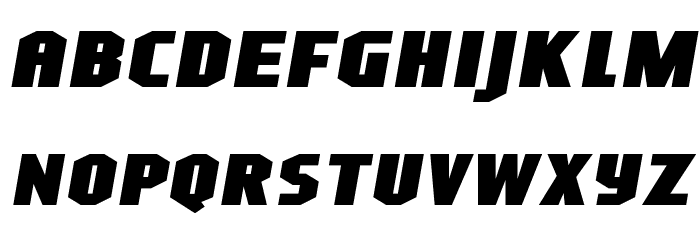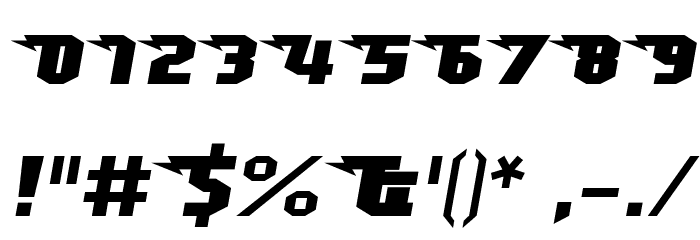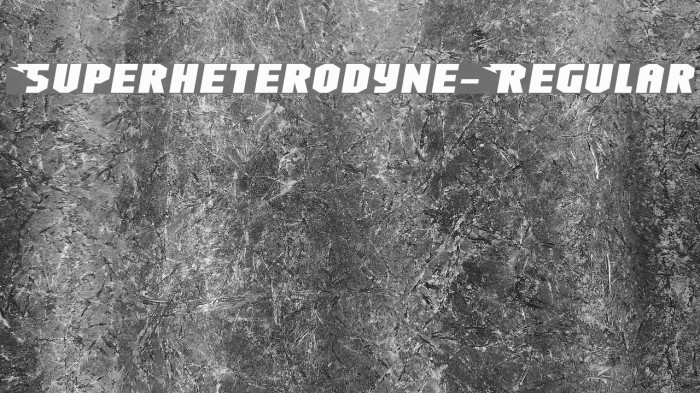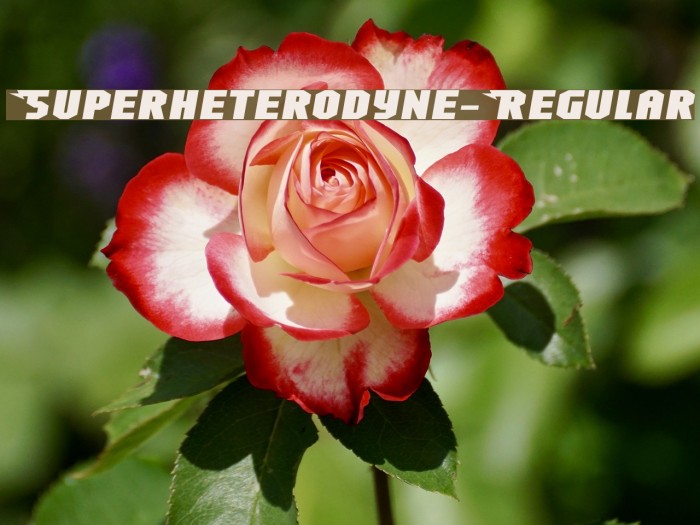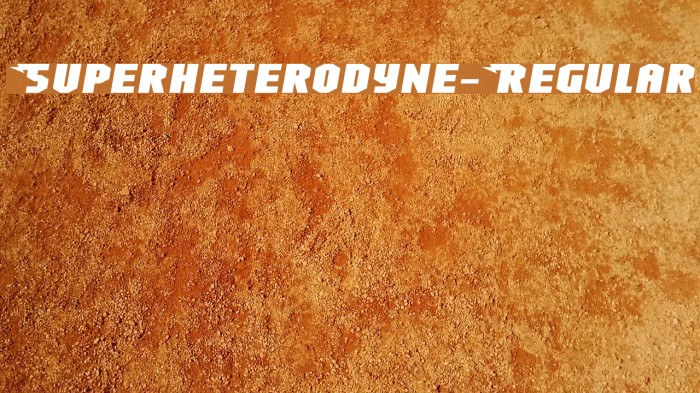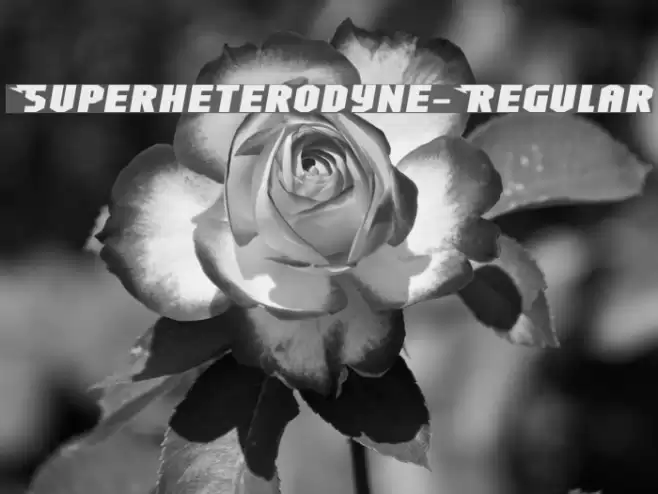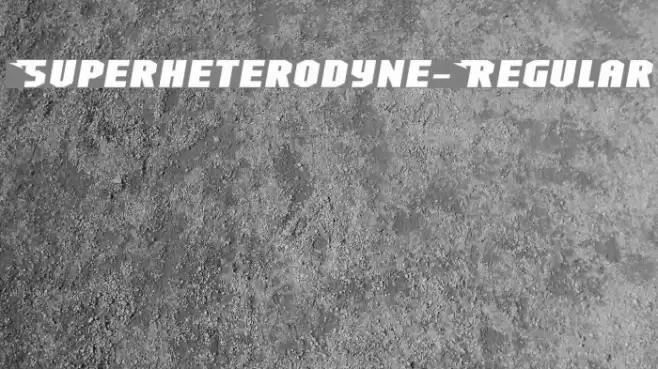
Superheterodyne-Regular Font
This font features a bold and dynamic design with sharp, angular edges that create a sense of movement and energy. The uppercase letters are particularly striking, with a futuristic and aggressive style that makes them stand out. The lowercase letters maintain this boldness, ensuring consistency across the typeface. Numbers and special characters are designed with the same angular and edgy aesthetic, providing a cohesive look. The font's unique style makes it suitable for attention-grabbing headlines and impactful designs.
- Proposed Projects: Ideal for sports branding, video game titles, sci-fi movie posters, and dynamic advertising campaigns.